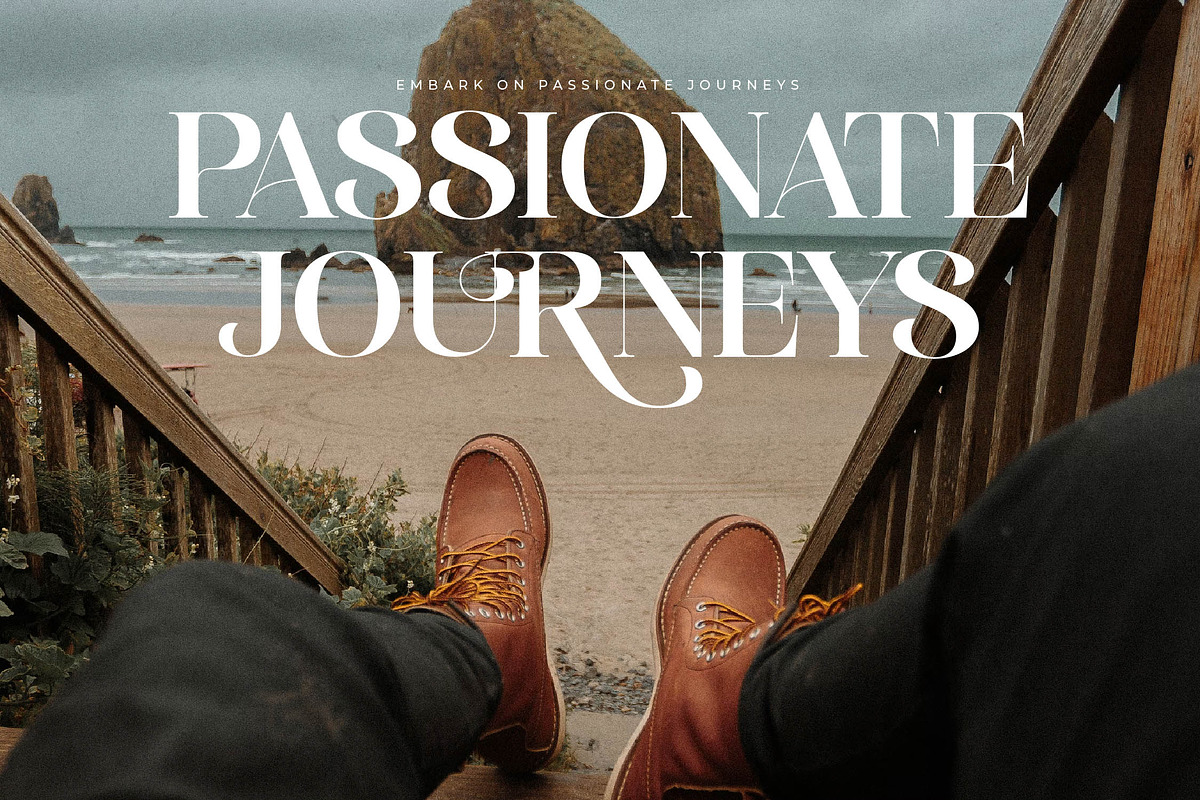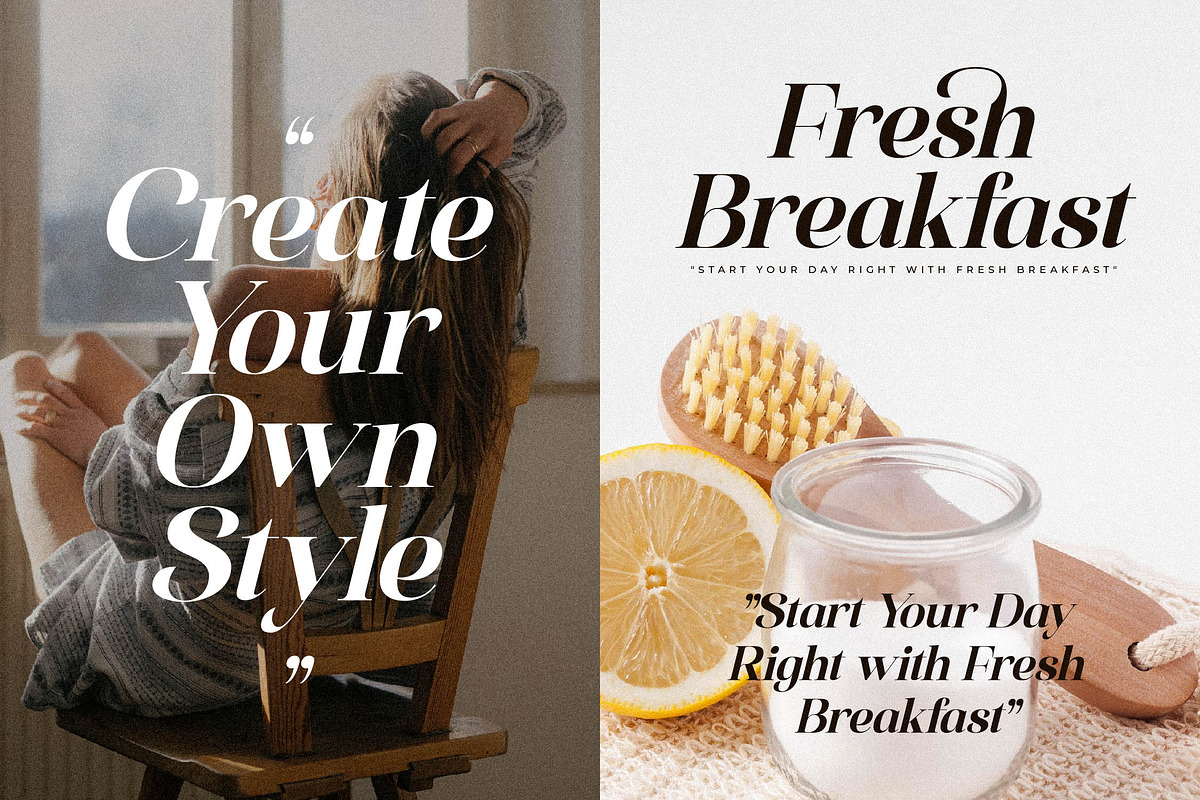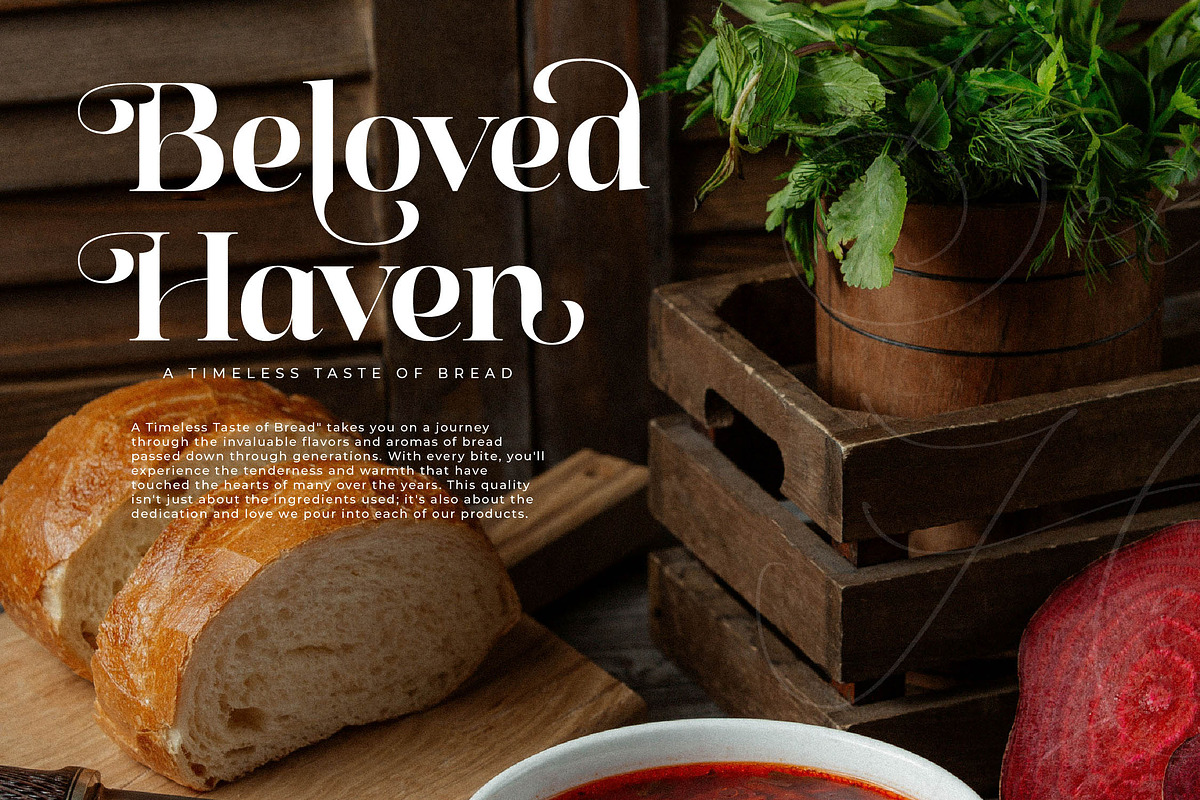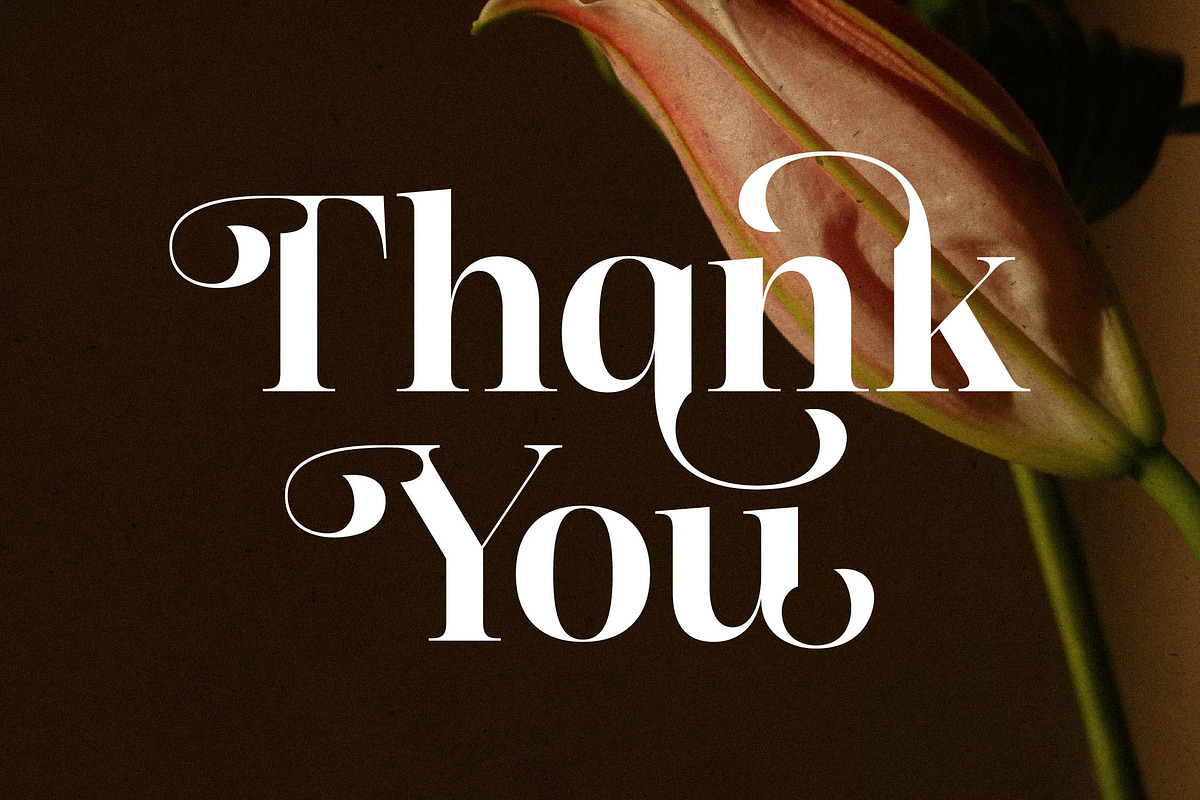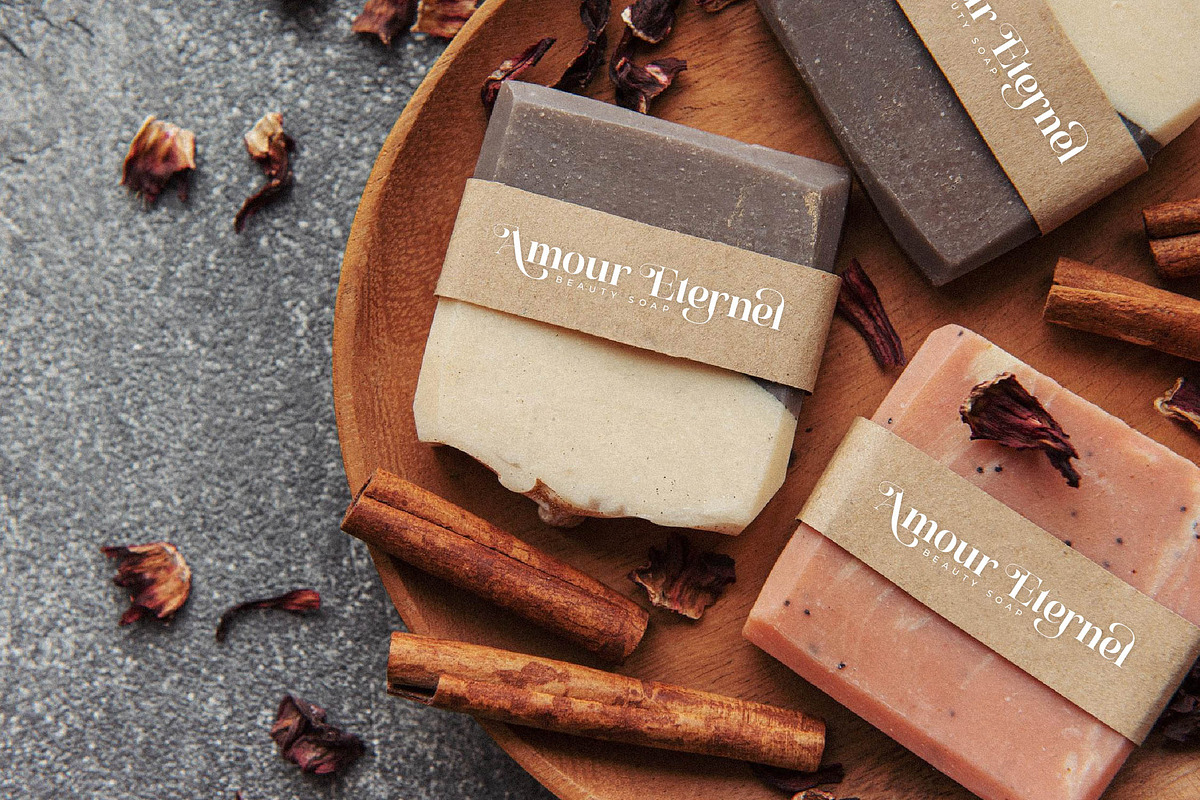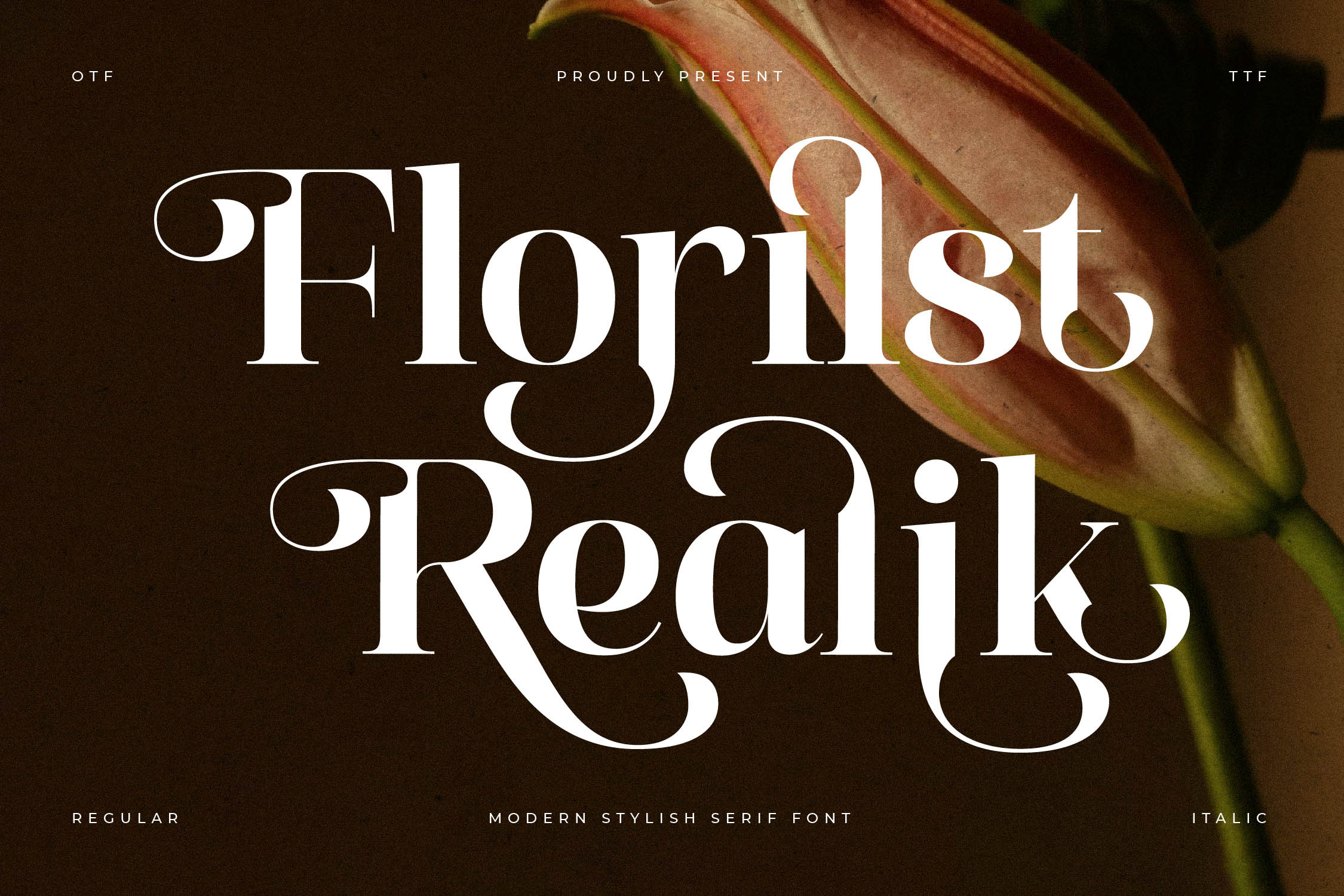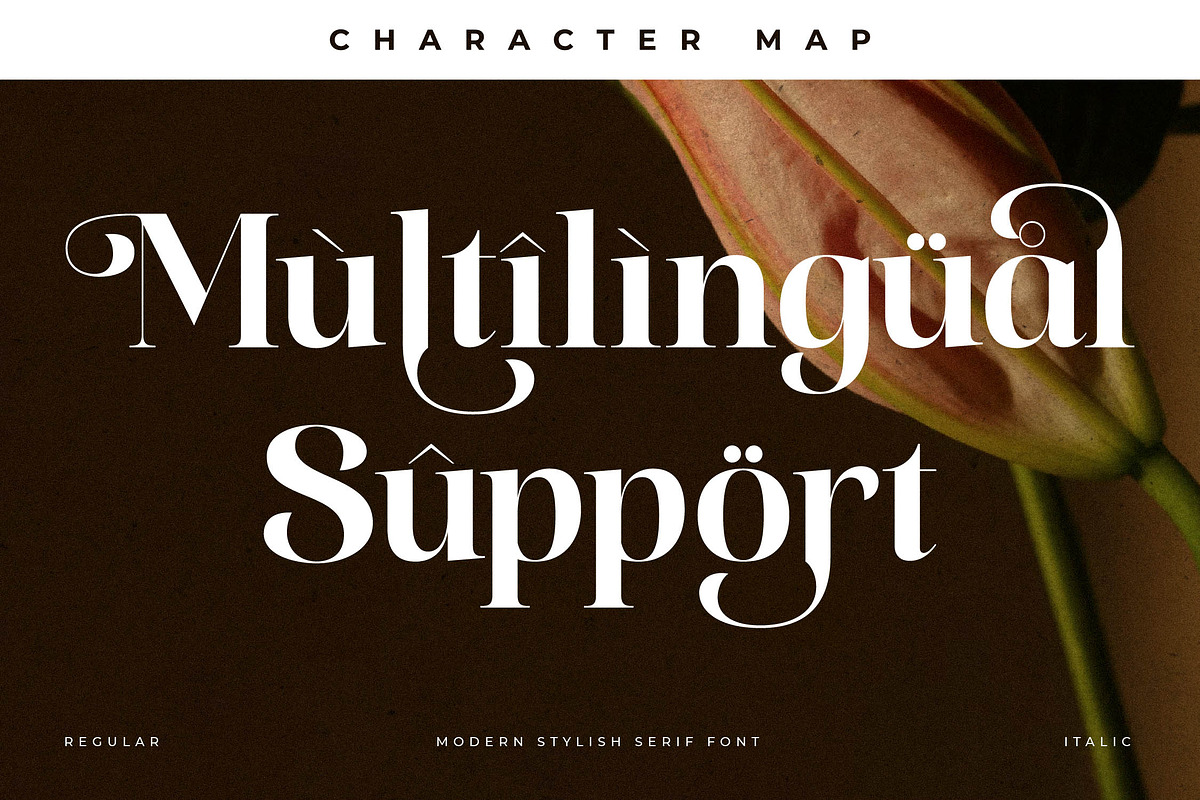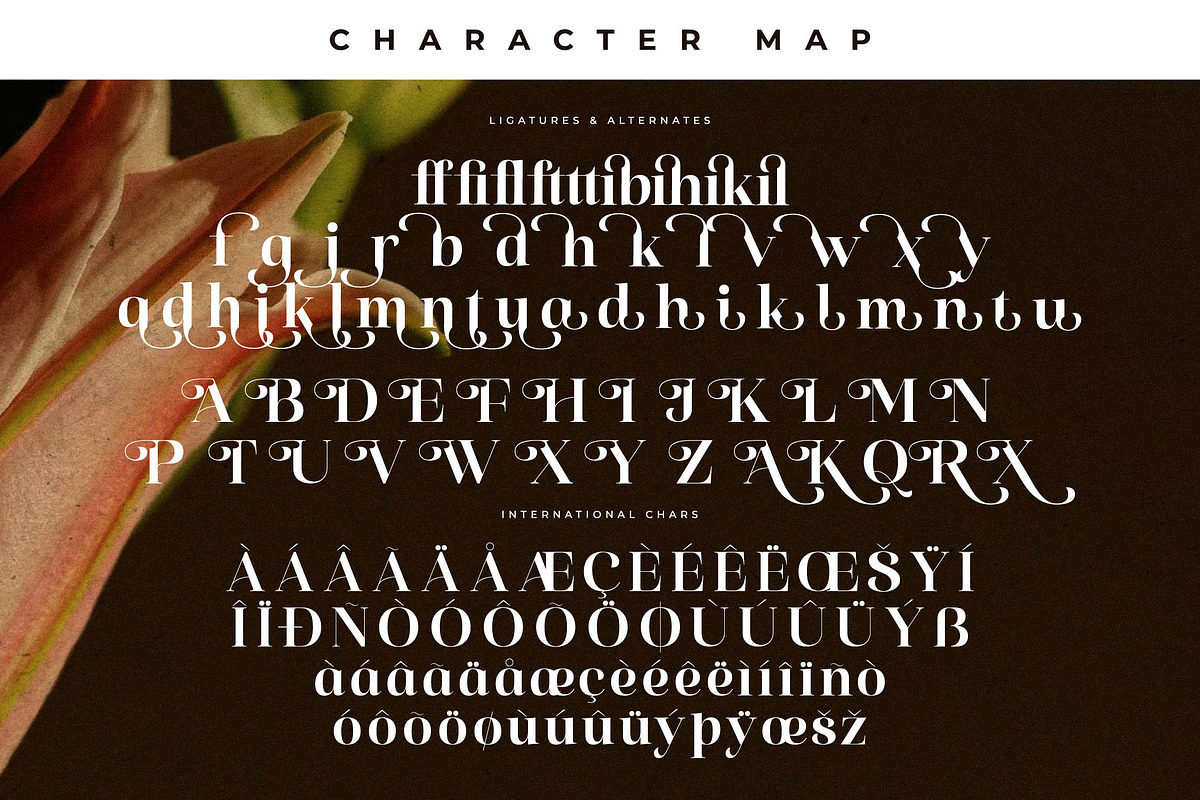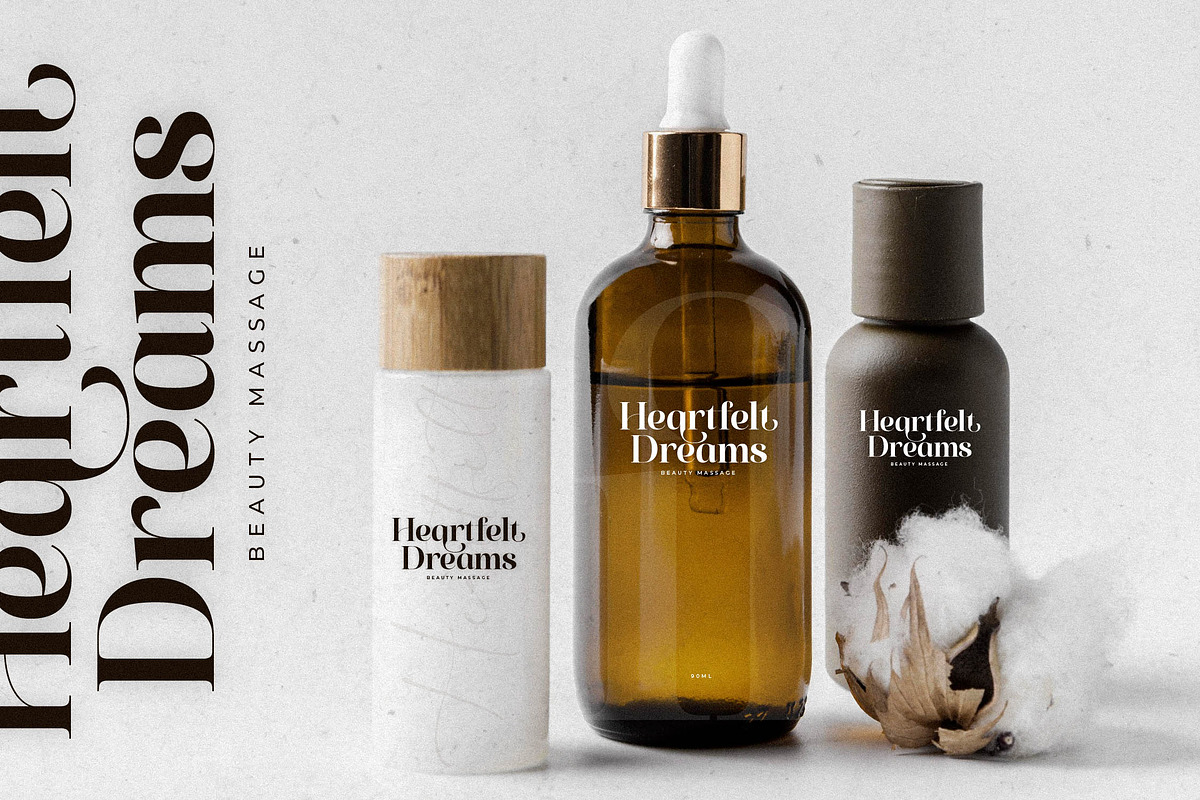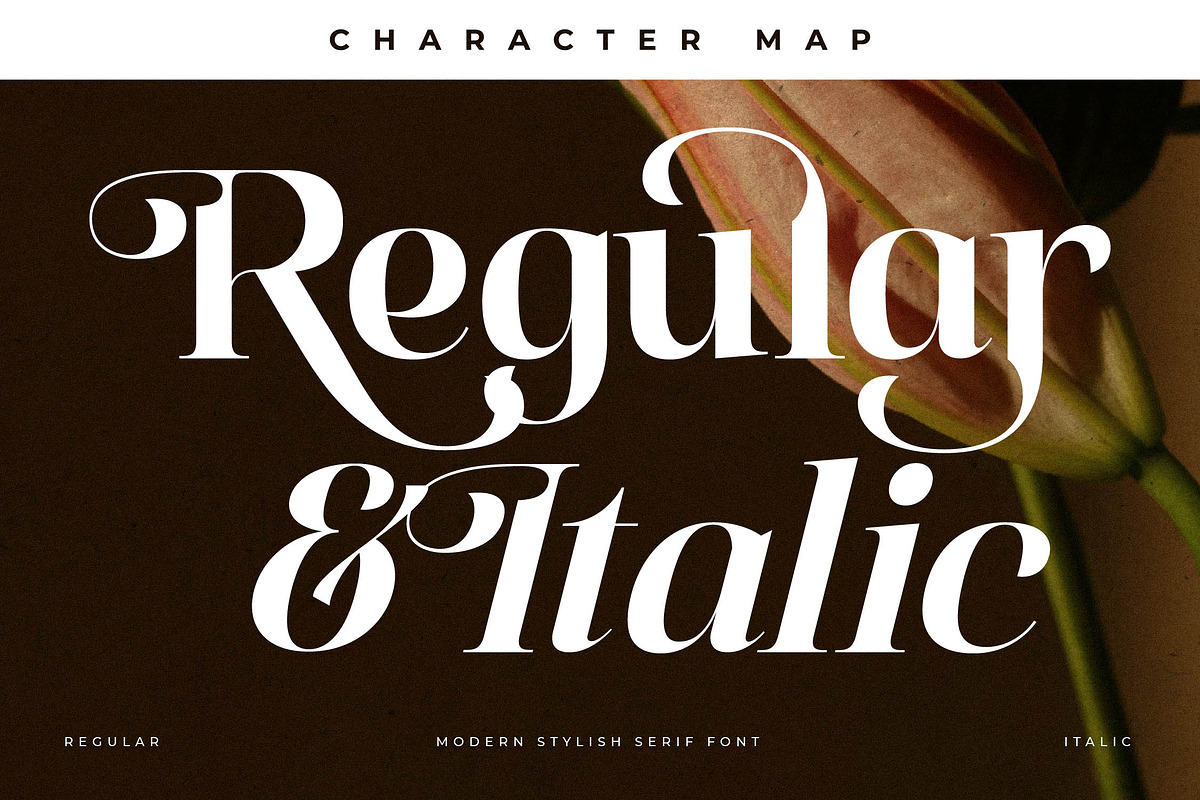
Florilst Realik Modern Serif Font
Proudly present Florist Ralik Typeface , created by Storytype, A serif and script typeface that has own unique style & modern look. This typeface is perfect for an elegant & luxury logo, book or movie title design, fashion brand, magazine, clothes, lettering, quotes, and so much more.